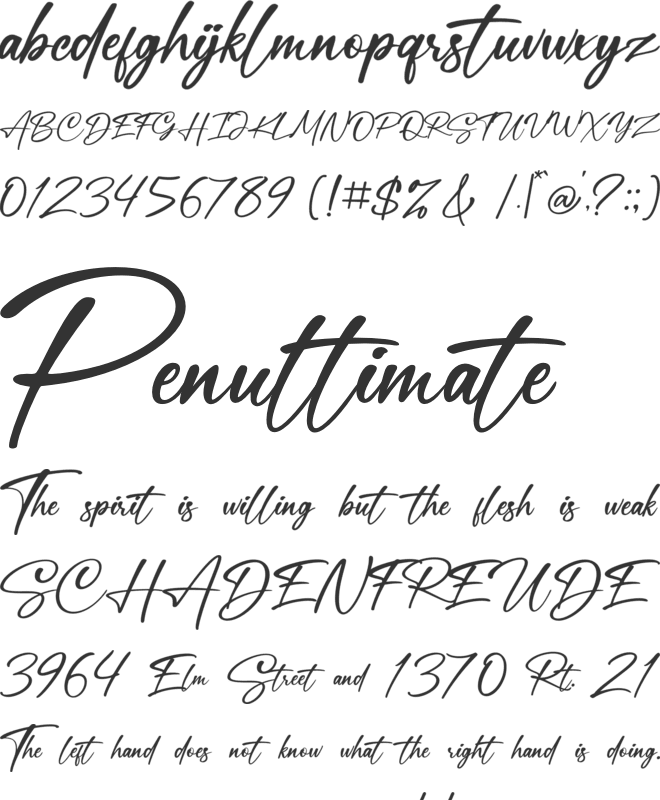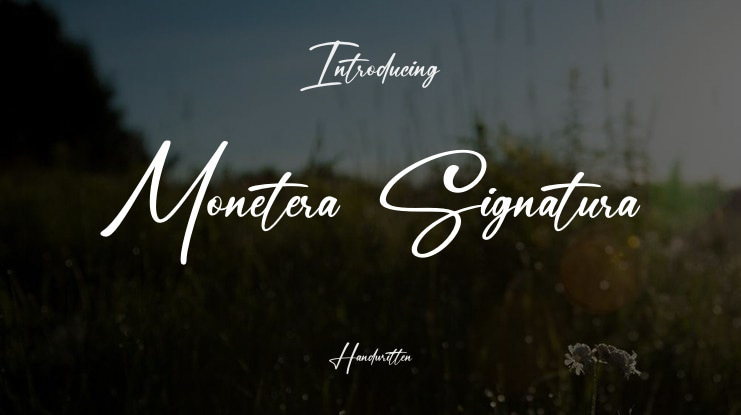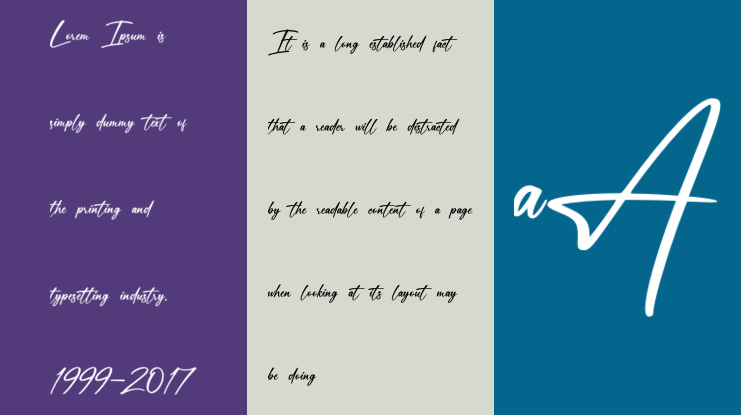
Monetera Signatura Font
INTRODUCING Monetera Signatura a Handwritten Font
Monetera Signatura a Handwritten Font that adds a elegant, versatile touch to everything from branding and social media to invitations and packaging.